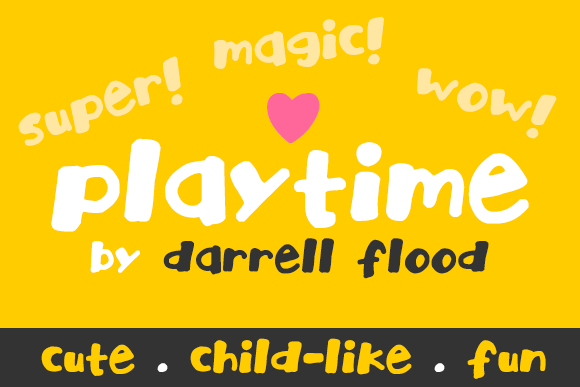
Playtime Font
About Playtime Font
Playtime is a fun, casual, and hand drawn font that is perfectly suitable for children’s designs and projects. Hand drawn in a blobby marker style, this font is charming and youthful and can add a laissez-faire quality to your projects.